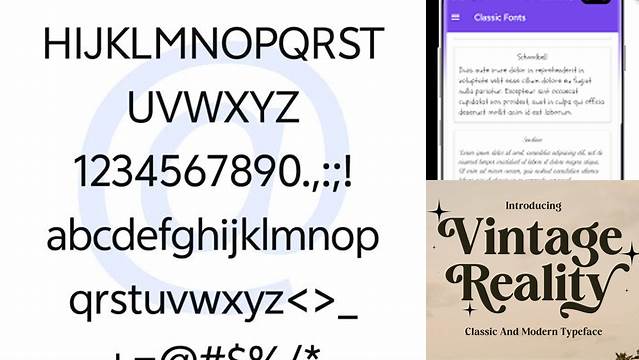
H2: Understanding the Vivo Classic Font: What Makes It Special?
Alright, guys, let's talk about the Vivo Classic font. What makes it so special that everyone's looking for it? The Vivo Classic font isn't just any typeface; it carries a certain elegance and readability that makes it stand out. It's often characterized by its clean lines and balanced proportions, making it a fantastic choice for various design projects. Think of it as the versatile friend in your font collection – it gets along with everyone and looks great in most situations! It's designed with both aesthetics and functionality in mind, ensuring that it's not only pleasing to the eye but also easy to read, whether you're using it for a small heading or a large block of text. This careful balance is what makes the Vivo Classic font so desirable. The design often incorporates subtle curves and sharp edges, creating a harmonious blend that appeals to a wide audience. It’s the kind of font you can confidently use in both professional and personal projects. Whether you're designing a website, creating marketing materials, or simply sprucing up your social media posts, the Vivo Classic font can add a touch of class and sophistication. It's more than just a collection of letters and symbols; it's a communication tool that can enhance your message and captivate your audience. Understanding its unique features allows you to use it most effectively, ensuring your designs make the right impression. This font is not only about its appearance; it's about the overall impact it creates. Using the right font can significantly influence how your audience perceives your message. The Vivo Classic font helps achieve this by providing a polished and modern feel to any project, which makes it a perfect choice for many designers and users. Its versatility allows for creativity, and its design supports clarity in communication. It's not just a font; it’s an essential element for effective design.
H3: Key Characteristics of Vivo Classic Font
Let’s delve deeper into what makes the Vivo Classic font tick, shall we? One of the primary characteristics that sets this font apart is its remarkable clarity. In a world filled with countless font choices, legibility is king, and the Vivo Classic font excels in this area. The designers meticulously crafted each letter to be easily recognizable, even at smaller sizes, making it an excellent choice for both headlines and body text. Secondly, it often sports a modern and clean aesthetic. Gone are the days of overly ornate or cluttered fonts; the Vivo Classic font embraces simplicity and elegance. This minimalist approach makes it incredibly versatile, allowing it to complement a wide range of design styles, from corporate websites to creative portfolios. Another key aspect is its adaptability. The Vivo Classic font can seamlessly fit into many projects, including digital and print media. Whether you need it for your next presentation, poster, or mobile app interface, it adjusts beautifully without losing its essence. Furthermore, the Vivo Classic font frequently offers a variety of weights and styles. You'll find everything from light and delicate versions to bold and impactful ones, providing you with the flexibility to tailor the font to your specific needs. This range lets you control the visual hierarchy of your design, ensuring that important information stands out. Finally, the Vivo Classic font often promotes a sense of sophistication and professionalism. It communicates a sense of trustworthiness and attention to detail, making it a fantastic choice for brands looking to establish a strong visual identity. These features combined create a font that’s not only functional but also visually appealing and a joy to use. The Vivo Classic font delivers a smooth, enjoyable reading experience that ensures your message will be well-received.